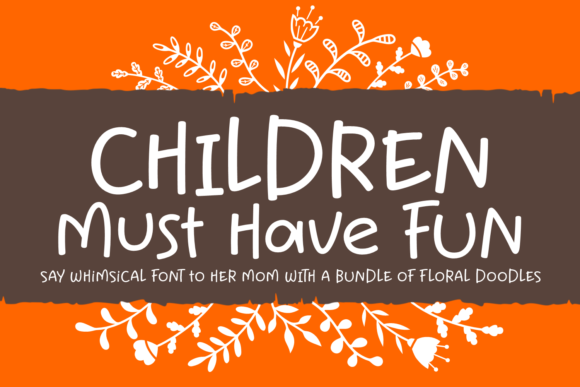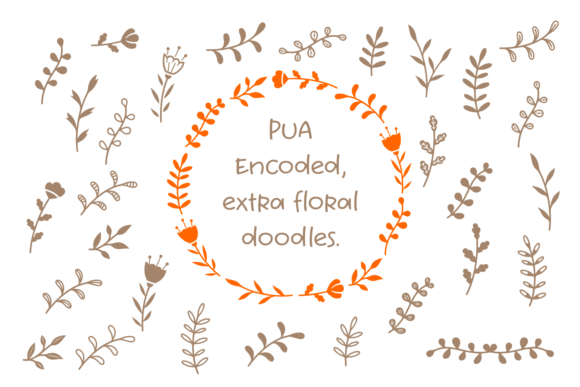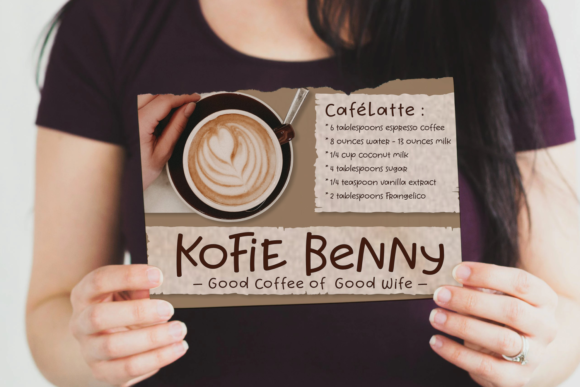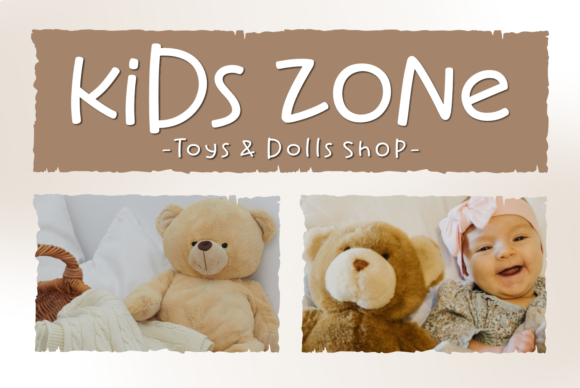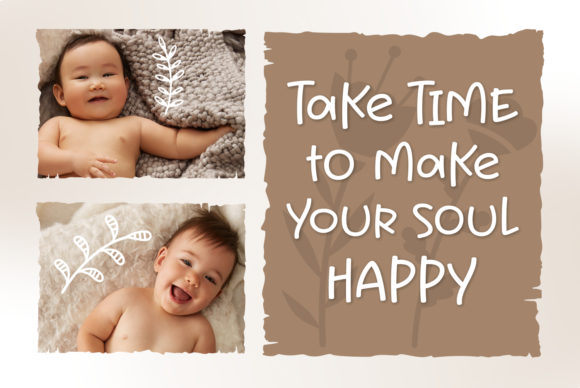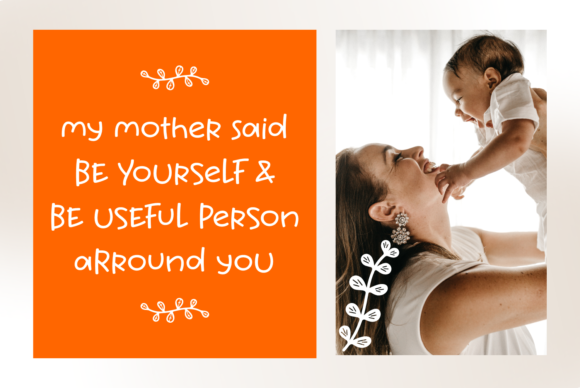
Children Must Have Fun Font
About Children Must Have Fun Font
Children Must Have Fun is a cute and playful handwritten font with a whimsical twist. Use it to add a magic spark to any kids-themed crafting idea!